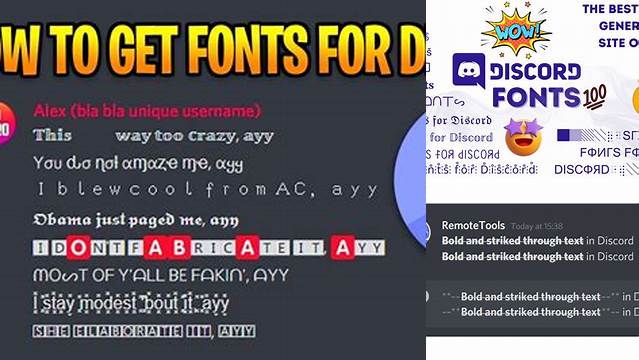
Discord Mobile Fonts: A Guide To Stylish Text
Hey guys! Ever wanted to spice up your Discord chats on your phone with some fancy fonts? You're in luck! This guide will walk you through how to get fonts on Discord mobile, exploring different methods, tips, and tricks to make your messages stand out. We'll cover everything from using built-in formatting to external tools, ensuring you can express yourself creatively within the Discord mobile app. So, buckle up, and let's dive into the world of cool fonts for your Discord conversations!
H2: Understanding Discord's Font Limitations on Mobile
Alright, before we get started, let's be real. How to get fonts on Discord mobile is a bit different than on desktop. Discord mobile, in its native form, doesn't offer a wide array of font choices like you might expect. The app primarily uses a standard system font to ensure consistency and readability across different devices. This means you won't find a built-in font selection menu similar to what you might see in a word processor or other messaging apps. However, don't let this discourage you! There are still some cool ways to customize your text and add a bit of flair to your messages. We will uncover these secrets one by one. Knowing the limitations is important, guys. It sets the stage for understanding the alternative methods we can use. You'll learn that while direct font selection isn't available, you can still achieve unique and eye-catching text styles on your mobile device.
So, think of it like this: Discord mobile provides the canvas, and we'll find the tools to paint it with some awesome text effects! Let's explore the basic formatting options first. Before we get into the fancy stuff, let's cover the basics. Discord mobile supports a few simple text formatting options that you can use directly within the app. These include bold, italics, underline, and strikethrough. These are super easy to use and can add emphasis to your messages. To use bold, just put two asterisks (**) or two underscores () before and after your text. For italics, use one asterisk (*) or one underscore (_). Underline requires two underscores (), and strikethrough is achieved with two tildes (~~). These are like the building blocks. These basic formatting options help you highlight important words or phrases, making your messages easier to read and understand. They're not flashy, but they're effective, and you don't need any extra tools to use them. This basic formatting is like the salt and pepper of your text. While it's not the main course, it's essential and enhances the overall flavor of your messages. They provide a clean and simple way to add some visual interest. Mastering these basics is crucial because they form the foundation upon which you can build more complex text styles. Let's consider a scenario: you're coordinating a game night and want to emphasize the start time. You could make it bold to grab attention. See, it's that simple and effective!
H2: Utilizing Discord's Basic Text Formatting on Mobile
Alright, let's get down to brass tacks, shall we? Before we jump into the more elaborate methods for how to get fonts on Discord mobile, let's refresh our understanding of the basics. Discord mobile, by design, offers a few straightforward text formatting options right out of the box. These are your go-to tools for adding a little pizzazz to your messages without needing any external apps or websites. We're talking about bold, italics, underline, and strikethrough. These are implemented using simple markdown syntax, which means you add special characters before and after the text you want to format. It's as simple as that! These basic formatting options are like the essential tools in your communication toolbox. They're quick, easy to use, and effective in highlighting key information or adding emphasis to your text. To use bold text, simply enclose your text within double asterisks (text) or double underscores (text). This makes the text appear thicker and bolder, drawing the reader's eye. For italicized text, use a single asterisk (text) or a single underscore (text). This gives the text a slight slant, perfect for adding emphasis or conveying a tone of voice. Underlining is achieved by using double underscores (text). This visually separates the text, making it stand out. Finally, strikethrough is done by enclosing your text in double tildes (text). This places a line through the text, often used to indicate something that has been removed or is no longer valid. Now, let's look at some examples. You want to emphasize a deadline. You would write the deadline in bold to draw attention. You're suggesting a new idea, write that idea in italics to show your thought. This basic formatting ensures that your messages look clean and professional. By mastering these basic formatting options, you're already on your way to creating more engaging and readable text on Discord mobile!
H3: Bold, Italics, Underline, and Strikethrough: The Fundamentals
Alright, let's break down the core formatting tools available for how to get fonts on Discord mobile. These are the building blocks of your text customization: bold, italics, underline, and strikethrough. Understanding these fundamentals is crucial for anyone looking to add a little visual flair to their messages. To use bold text, you simply need to enclose the text you want to emphasize within double asterisks (text) or double underscores (text). The result is a thicker, bolder version of your text, making it instantly stand out. This is perfect for highlighting important information, drawing attention to key points, or making announcements. Next up, we have italics. To achieve this, you need to surround your text with a single asterisk (text) or a single underscore (text). Italics is perfect for conveying a sense of emphasis, indicating a specific tone, or quoting someone. You can use it to create a sense of personality. Underlining is also a simple one. To underline your text, use double underscores (text). This visually separates your text, making it stand out. It can be especially useful for headings or important links. Strikethrough is the last element of our core formatting options. Using double tildes (text) will draw a line through your text. It's often used to indicate that something has been removed, is no longer valid, or is crossed out. Let's look at some practical examples. You're discussing a new game and want to emphasize the title. You would write the game's name. For italics, you might write a quote from a friend. To emphasize a key point, you can use underlined text. For strikethrough, you might write an outdated price. It's all about using these simple tools to make your messages more engaging and easier to read.
H2: Using Third-Party Font Generators for Discord Mobile
Now, let's get into the exciting part: using third-party font generators to spice things up for how to get fonts on Discord mobile. Since Discord itself doesn't offer built-in font options, font generators are your secret weapon for text customization. These tools allow you to type in your message, select from a variety of stylish fonts, and then copy and paste the formatted text into your Discord chat. The best part? These generators are usually super easy to use! Many are available online and are completely free. Most font generators have a simple interface. Just type your message into a text box, and it instantly generates the same text in different font styles. You can then browse through the options and choose the one you like best. Common fonts include: cursive, monospace, bold, and many more! After you find your font, just copy the formatted text and paste it into your Discord message. It's like magic! While these font generators work well, you should be mindful. Not all font generators are created equal. Some might have a limited selection of fonts, while others could potentially have issues with certain characters. Make sure you choose a reliable and well-reviewed font generator. Also, remember that the appearance of the fonts can sometimes vary depending on the device and operating system used. What looks amazing on your phone might render slightly differently on someone else's desktop. Let's talk about some popular generators. There are many options available online, and a quick search will uncover dozens of choices. Be sure to explore and find the ones that best fit your creative needs. Some of these generators offer advanced options, allowing you to customize the style further. However, for the most part, they are all very user-friendly. With these tools, you can really make your messages pop. These font generators are a fantastic way to inject some personality into your Discord chats. It's all about expressing yourself in the way that you want!
H3: Exploring Popular Online Font Generators
Alright, let's dive into the world of online font generators and see which tools can help you get those fancy fonts for how to get fonts on Discord mobile. Numerous font generators are readily available online, and they are your go-to resources for transforming basic text into something stylish and eye-catching. These tools work by converting your regular text into a variety of different font styles, which you can then copy and paste into your Discord messages. Finding the right generator is like finding the perfect paint for your digital canvas. The first place to start your search is by simply searching online for 'Discord font generator.' You'll find a wide array of choices. Some of the most popular ones include: Stylish Text Generator, LingoJam, and CoolSymbol. Each of these generators offers a unique selection of fonts and styles, so it's worth checking out a few to see which ones you prefer. Some generators will offer a vast array of styles, ranging from the simple and elegant to the wildly creative. Experiment with each of the tools until you find the generator that meets your specific needs. Most font generators have an easy to use interface. Simply type your message into the input box, and the generator will automatically display your text in a variety of different styles. You can usually select from options like bold, italic, cursive, monospace, and many more unique fonts. Once you find a font you like, simply copy the formatted text and paste it into your Discord message. These generators also allow you to preview your text in real-time, so you can see exactly how it will look before you send it. Remember to test the fonts on your device. Not all fonts render the same across different devices and operating systems. With the right font generator, you'll be able to express yourself creatively in your Discord chats. It's all about experimenting and finding the tools that work best for you!
H3: Step-by-Step Guide: Using Font Generators on Mobile
Alright, let's get practical and walk through a step-by-step guide on how to get fonts on Discord mobile using font generators. Using a font generator is a straightforward process, and it's a great way to add some flair to your Discord messages. Here's a simple guide to get you started. First, you'll need to find a font generator. You can find many online; simply search for 'Discord font generator' in your web browser. Once you've found a generator, visit its website. Next, type your message into the input box on the font generator's website. This box is usually prominent and easy to locate. As you type, the generator will automatically display your message in various font styles. Scroll through the options to find the font that best suits your style. Most generators offer a variety of styles, including bold, italics, cursive, monospace, and more. Once you find the perfect font, select the formatted text by highlighting it with your finger. Most generators will have a copy button, allowing you to quickly copy the text. Now, open your Discord mobile app and navigate to the chat where you want to send the message. In the chat input field, paste the formatted text you copied from the font generator. You can usually do this by tapping and holding in the input field and selecting 'Paste.' After you paste the formatted text, tap the send button to send your message! And there you have it: your message will appear in the stylish font you selected. It's that simple! These tools enable you to get creative with your text. Using font generators can give your Discord messages an extra touch of personality. Just remember that the appearance of some fonts may vary slightly depending on the device and operating system.
H2: Common Font Styles and Their Uses in Discord
Okay, let's explore some of the popular font styles and when to use them to level up how to get fonts on Discord mobile. Knowing which font styles to use in different situations can make your messages even more effective and visually appealing. Here's a quick rundown of some common styles and their appropriate uses. First, we have bold. Bold fonts are great for emphasizing important information. Use them to highlight key phrases, announcements, or calls to action. For example, you might bold the start time of a game night. Next, we have italics. Italics are excellent for emphasis, indicating a specific tone, or quoting someone. You can use them to convey a sense of emphasis or to highlight something. You might use italics to emphasize a thought. Then there is the monospace font. This font is perfect for displaying code or text that needs to be perfectly aligned. It's often used in tech-related channels. Next is the cursive font. Cursive fonts are good for adding a touch of elegance or a personal feel to your message. They can be used to create fancy headings. There are other special fonts you might find in a generator. These are generally used for fun. You can choose from a huge variety of options. The right font will depend on the purpose of your message. The key is to use the fonts thoughtfully and strategically. When used correctly, font styles can greatly enhance the impact of your messages. Let's say you're announcing a new server rule. Using a bold font to emphasize the new rule will make it clear. If you're quoting a friend, using italics can create clarity and give credit to the source. You want to create clear and understandable messages. By understanding the different font styles, you can express yourself more effectively.
H3: Bold, Cursive, Monospace, and Other Font Styles
Let's get into the nitty-gritty of different font styles and find out more about how to get fonts on Discord mobile. Knowing your fonts is essential for adding flair to your messages and expressing yourself effectively. Here's a closer look at some common font styles and what makes them unique. First up is bold. Bold fonts make your text stand out. Use them to emphasize key phrases, make announcements, or draw attention to important details. Then there's cursive. Cursive fonts mimic handwriting and add a touch of elegance. This font style is ideal for headings. Another popular font style is monospace. Monospace fonts are excellent for displaying code. This is because each character has the same width, making it easier to read. Next, let's explore the many other font styles. There are lots of other styles: You can often find styles such as double-struck, bubble, and many more. It's important to note that some font styles might not render properly on all devices. When experimenting with different fonts, it is crucial to choose fonts carefully. Not all fonts are suitable for every situation. For example, a formal font might look out of place in a casual conversation. Now, let's look at how to make the most of these fonts. You might use bold to emphasize an important announcement. Cursive can create a visually appealing heading. Monospace can display code cleanly. With all of the tools, you can creatively express yourself. It's all about choosing the right font for the job!
H3: Best Practices for Choosing Fonts on Discord Mobile
Alright, let's discuss some best practices for choosing fonts and making sure how to get fonts on Discord mobile works for you. Choosing the right font can dramatically improve the readability and impact of your messages. Here are some tips for getting it right. First, consider your audience. Think about who you're talking to and the context of your conversation. Choose fonts that are appropriate for the situation. For example, a fun, playful font might be great for a casual group chat, but a more formal font might be better for official announcements. Keep it readable. Some fonts are hard to read, especially on mobile devices. Choose fonts that are clear and legible. Avoid overly ornate or complex fonts. Then, consistency is key. Try to stick to a consistent font style within a conversation or channel. This helps create a sense of unity and makes it easier for others to follow. Less is more. Don't overuse font styles. Too much formatting can make your messages look cluttered and unprofessional. Use formatting sparingly to highlight key information. Test the fonts on different devices. As mentioned before, the appearance of fonts can vary across devices. Test your messages on different devices and operating systems to ensure the font looks as intended. Let's walk through some practical examples: You are making an announcement about a serious issue. Stick to a clear and professional font. If you are creating a fun meme, a playful font may be the most appropriate. These best practices help you make informed choices. By following these tips, you can ensure that your messages are clear, engaging, and easy to read.
H2: Troubleshooting Font Issues on Discord Mobile
Uh oh! Sometimes, things don't go as planned. Let's troubleshoot some of the common problems related to how to get fonts on Discord mobile. Even when you use font generators, you might run into issues. Here's what to do when things don't work perfectly. The first thing to check is compatibility. Not all fonts generated by third-party tools work on every device or Discord version. Make sure the fonts you're using are compatible with your device. Always check your font generator. Some font generators might have issues. Make sure the generator is working correctly. Also, check your device and make sure it is fully updated. Update the app and operating system for the best results. Another problem is incorrect formatting. Always double-check that you've copied and pasted the formatted text correctly. Small errors can cause the font to not display as intended. Also, be patient, and let others know about any issues. Remember that some font styles are designed to be more decorative than practical. If you're trying to share code, a monospace font is a good choice. For longer messages, it may be better to use bold or italics. Let's look at examples: your generated text might not appear in the right font. Check if the font generator is working correctly. If you are sharing code, double check to make sure you have formatted it correctly. If you're consistently experiencing issues, try using a different font generator or a different font style. By following these troubleshooting tips, you should be able to resolve most font-related problems and make the most of your font customization efforts.
H3: Common Problems and Solutions with Font Rendering
Let's dive deeper into troubleshooting and learn more about the problems related to how to get fonts on Discord mobile and how to fix them. You'll likely run into some issues when trying to get cool fonts on your mobile device. So, here are some common problems and how to solve them. The first issue is compatibility. Not all font styles are supported on all devices. Older devices or certain operating systems may not render certain fonts correctly. The solution? Try using a different font style. Some fonts are more widely supported than others. Another common issue is font generator problems. The issue could be the font generator, and the issue may be with the generator itself. The solution? Test a different font generator to see if it works better. Sometimes, incorrect formatting is the culprit. You may have not copied the text correctly from the generator. Always double-check that you have copied and pasted correctly. Check the copy and paste operation. Sometimes, the font might not show up correctly because the font style is not suitable for the situation. The solution? Choose a more appropriate font style. Let's walk through some scenarios. If a specific font style is not displaying, try using bold or italics. If the copy/paste process went wrong, try again. The troubleshooting tips can help you solve most issues. Keep experimenting with different styles. By learning how to identify and fix these common problems, you can make sure your custom fonts work the way you want them to!
H3: Ensuring Compatibility Across Devices and Discord Versions
One of the biggest challenges when trying to get fonts on Discord mobile is ensuring that your text displays correctly across different devices and Discord versions. Let's explore how to overcome this challenge and ensure how to get fonts on Discord mobile is a smooth experience. The first thing to consider is the device's operating system. Older operating systems may not support some of the newer font styles. Make sure your device's OS is up to date. It will also enhance your experience on Discord. Also, you should consider the Discord version. Discord updates their app regularly, and these updates can affect font rendering. Make sure you are using the latest version of the Discord app to take advantage of the latest features and font support. Now, let's look at cross-platform compatibility. If you're chatting with friends on different devices, you want your messages to look consistent. Different devices may display certain fonts differently. Try using fonts that are more universally supported, such as bold and italics. Here's what to do: Check your device and Discord app for updates. This is the first step. If you find an issue, try a different font style. The best way to ensure compatibility is to stick to the basic formatting options. If you're using third-party font generators, test your messages on different devices to see how they appear. These steps will help you make sure that your messages look the way you want them to. You may encounter some font rendering issues. By focusing on compatibility, you can ensure a better experience for everyone.
H2: Advanced Tips and Tricks for Discord Mobile Fonts
Okay, let's unlock some advanced tips and tricks to truly master how to get fonts on Discord mobile. Once you've mastered the basics, it's time to level up your font game with some cool techniques. Here are some advanced tips and tricks to take your text customization to the next level. First, let's talk about combining formatting options. Get creative and mix and match bold, italics, and other formatting options. You can combine them to create even more unique and expressive text styles. For example, you could use bold and italics together. Next, consider using different text styles for different purposes. Use bold to highlight important details and italics to convey a specific tone. You want to make sure your messages are easy to read and understand. Consider emojis. Emojis can be used with your custom fonts. They can enhance the visual appeal of your messages. Let's talk about creative uses. You can use special characters to make your text stand out. Be creative and express yourself! You can use these tips and tricks to enhance your message and creativity. With these techniques, you can take your text game to the next level. Remember to express yourself creatively.
H3: Combining Formatting Options for Unique Effects
Let's dive into the art of combining formatting options and take a look at how to get fonts on Discord mobile by using multiple formatting methods. Combining formatting options can open up a world of creative possibilities and help you create text styles that truly stand out. The magic of combining formatting options lies in their ability to complement each other and create new effects. To get started, it's important to understand how different formatting options interact. Consider using bold to emphasize a key phrase, then use italics to convey a sense of emphasis. You can also use other options. By experimenting with different combinations, you can come up with unique visual styles. Let's get to some examples: combine bold and italics to create emphasized text. This can add a unique touch. Another example, using underline and bold. This will make the text more readable. When combining formatting, use a clear and consistent style. Your messages will be more effective if you do. Let's look at some scenarios: want to emphasize a key word, then combine bold with italics. Or you might use underline and bold to make a heading pop. Combining formatting is the key to creating visually appealing and expressive messages. By experimenting with different combinations, you'll discover tons of new ways to customize your text!
H3: Using Emojis and Special Characters with Font Styles
Let's mix things up and see how we can add emojis and special characters to take on how to get fonts on Discord mobile. Emojis and special characters are a fantastic way to add personality to your messages, and when combined with custom fonts, they can create an even more engaging effect. The first step is knowing how to insert emojis and special characters. On most mobile devices, you can access emojis through the keyboard. You can also find special characters by using a text generator. The next step is combining them with your fonts. Place emojis strategically around your formatted text. The combination can be very creative. For example, you can put emojis around a heading to make it look very special. Also, you can use special characters to add some flair. Let's look at some examples: You can use emojis to highlight key details. Using emojis can convey more than just words. When combining them, be creative and use a consistent style. The possibilities are endless. When used effectively, emojis and special characters can help you create engaging messages. You'll also create messages that are more visually appealing. It's all about finding the right balance between text, emojis, and special characters to create the look you want.
H3: Creative Ways to Use Discord Mobile Fonts in Different Channels
Let's get into the fun part and discuss creative uses for how to get fonts on Discord mobile. Understanding how to apply custom fonts to different channels will allow you to make the most of your messaging experience. You can customize your text styles to match the channel's purpose. If you use different channels, you'll want to use different formatting styles. If you are in a general chat channel, use a more casual and friendly style. In an official channel, use a more formal and professional style. Let's get into examples: In a gaming channel, you could use bold and italics. This can add excitement to the channel. In a server announcement, you can use bold. This will help users find your message. Using these different styles is the best way to create a tailored message. By tailoring your fonts, you can make sure that your messages are always appropriate. With some creativity, you can customize your messages for each channel. These best practices will allow you to express yourself creatively in all situations!
H2: The Future of Fonts on Discord Mobile
Alright, let's peek into the crystal ball and see what the future holds for how to get fonts on Discord mobile. Technology is constantly evolving, and so is Discord. Here's what we can expect to see in terms of fonts on mobile devices. One exciting possibility is increased support for custom fonts. As Discord continues to improve, we could see the app incorporating more font options directly. This would make it easier than ever to customize your messages. Another future possibility is more seamless integration with third-party tools. We could see Discord provide more features that make using font generators easier. There are also the possibility of new formatting options. Discord might introduce new text formatting options. This would expand the ways you can express yourself in your messages. Let's also consider user-generated content. Discord could provide ways for users to create their own fonts. The possibilities are endless. In addition to the above, you can expect things to keep evolving. The future of fonts on Discord mobile is exciting. As Discord evolves, expect to see more options. With these changes, you'll be able to create messages that are better than ever!
H3: Potential Future Features and Updates
Let's get into the future of how to get fonts on Discord mobile and what updates and features we could look forward to. As Discord continues to evolve, we can expect to see updates and changes that could enhance our font customization options on mobile. Here's a look at some potential future features that could change the game. One exciting prospect is more native font options. Discord could incorporate more font styles directly into the app. This would give users more options for expressing themselves. Also, increased integration with third-party tools. Discord could find ways to integrate font generators. Another possibility is advanced text formatting options. They could introduce features like text gradients. Also, the integration of user-created fonts. Discord could allow users to make their own fonts. These are just some of the possible future updates. The future is all about more options for customization. By keeping up to date with the new features, you'll be able to create amazing messages. The possibilities are endless, and the future looks bright.
H3: Community Feedback and the Evolution of Text Customization
Let's delve into the impact of community feedback and its influence on the evolution of how to get fonts on Discord mobile. Discord is a community-driven platform. The Discord community plays a very important role. Community feedback has a very important role in Discord's evolution. Discord regularly seeks feedback. They also take feedback to improve the platform. This community feedback helps shape the features. Discord has improved their text customization options. The user community will also help push for new font features. The community is very important. By listening to community suggestions, Discord will be able to implement more font options. Discord has always been committed to its users. Community feedback has played an important part in the evolution of the features. This allows the app to create the best user experience. The evolution will continue. By listening to the community, Discord will be able to enhance the platform. The community will provide innovative ideas. They will allow Discord to create more cool features.
H2: Conclusion: Mastering Discord Mobile Fonts and Beyond
Alright, we've come to the end of our journey. You now have a better understanding of how to get fonts on Discord mobile! We've covered everything from the basics to advanced techniques and troubleshooting tips. Now you're ready to level up your Discord messaging skills. Here are some key takeaways. Start with the basics. Master the built-in formatting options. These are essential. Next, explore third-party font generators. Experiment with different generators. Learn how to use emojis. It's all about creativity. Remember to troubleshoot. Also, embrace the future of fonts. As you explore new ways to express yourself, your Discord chats will become even more exciting.